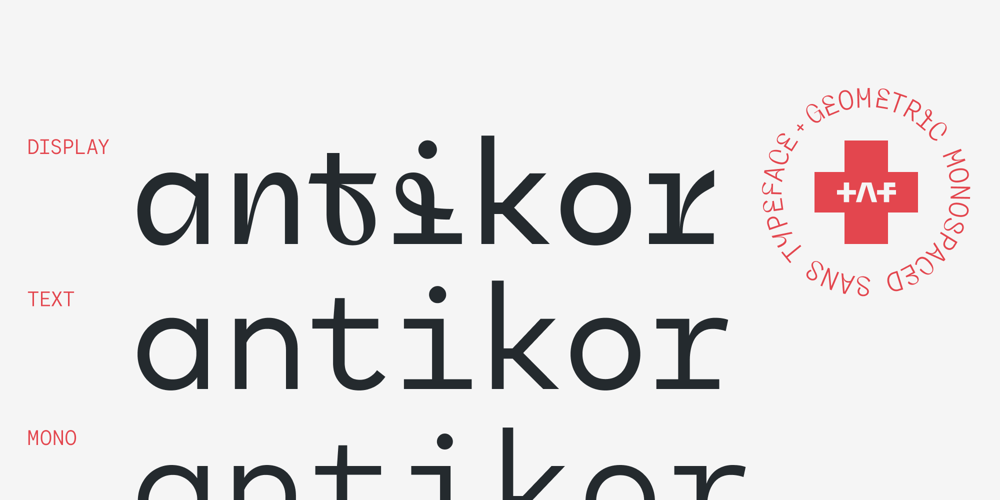
Antikor Font Family was designed by Taner Ardali and published by Taner Ardali. Antikor contains 55 styles and family package options. Antikor is “mono geometric sans” family consist of 3 styles, 55 fonts with real italics…All fonts of family contains 800+ glyphs, and equipped with many typographic features.(Styles: Mono, Text and Display)Antikor Text is designed for those who prefer to use monospaced fonts not only in coding but in many different media of graphic design. The idea came from creating a typeface with monospaced aesthetic without disturbing aspects of monospaced typefaces . Antikor text has proportional spacing and precise kerning to avoid poor rhythm and track in reading text. It also provides wide range of useful features with extended glyph sets and opentype features.Antikor Mono is geometric sans monospaced typeface with all typographic features except spacing and kerning. As other styles it has many opentype features and extended character set including SmallCaps, Stylistic Alternatives, Scientific Numbers, Fractions, Oldstyle Numbers, Case Sensitive Forms, Arrows, Circled numbers and etc… It is designed to meet all the needs of the monospaced text medias…As Antikor is a versatile family, Antikor Display is a very alternative typeface with playful calligraphic curves.It is designed with the idea of creating a contrast and eye catching touch in display use of typography. It creates tasty contrast against the serious and solid monospace look. Each style has 11 weights ranging from Hairline to ExtraBold + real italics, consist of 22 fonts.